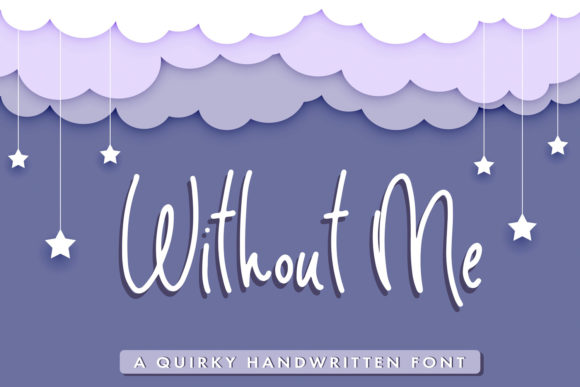
Prepare yourself to be captivated by Without Me, the enchanting handwritten font that will ignite your creativity and add a touch of magic to your designs. Its delicate strokes and natural flow will evoke a sense of warmth and authenticity, making it the perfect choice for any project that demands a personal touch.
Without Me effortlessly blends the charm of handwritten notes with the versatility of a digital font, empowering you to express yourself in a way that feels both intimate and stylish. Its subtle variations and elegant curves will add a touch of sophistication to your designs, whether you're crafting heartfelt letters, designing eye-catching logos, or creating stunning social media posts.
The possibilities with Without Me are endless. Imagine using it to create personalized invitations that feel like warm embraces, design enchanting posters that captivate your audience, or craft unique branding materials that leave a lasting impression. Its versatility extends beyond traditional design realms too, making it an excellent choice for website headers, product packaging, and even tattoos!
But what truly sets Without Me apart is its ability to evoke emotions. Its gentle curves and heartfelt strokes will convey a sense of warmth and connection, making it the perfect choice for projects that aim to inspire, uplift, and create a lasting impact. Whether you're a seasoned designer or just starting your creative journey, Without Me will empower you to craft designs that resonate deeply with your audience.
So why settle for ordinary when you can have extraordinary? Embrace the magic of Without Me today and unlock a world of creative possibilities. Its versatility, emotional appeal, and timeless beauty will elevate your designs to new heights, leaving a lasting impression on all who encounter them.